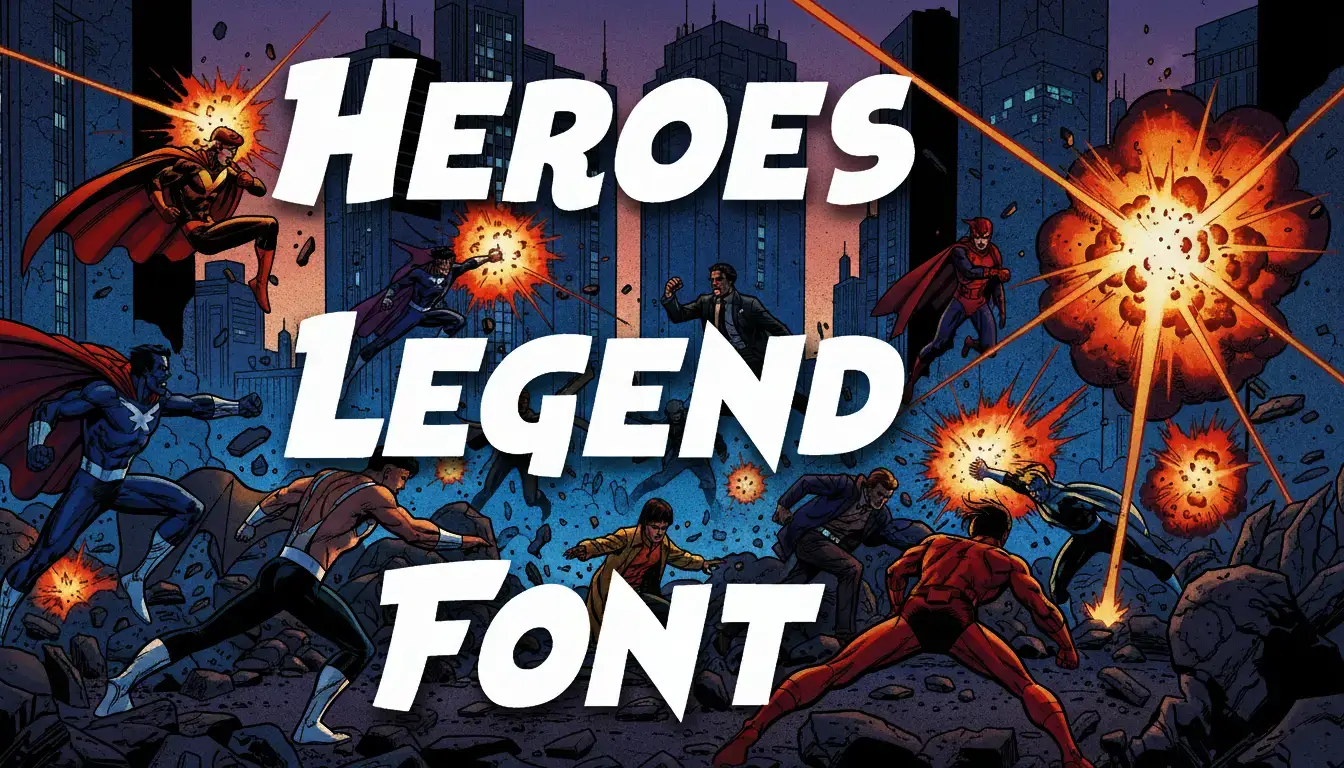
Heroes Legend Font
Heroes Legend
- Designer: IMAGEX
- Glyphs: 171
What You Can Type With Heroes Legend
You get every letter from A to Z in both cases and all the numbers from 0 to 9, which means Heroes Legend can handle full sentences, dates and prices. Common punctuation such as &, !, ? and @ is included as well. It also has the accented letters you need for Spanish, French, Portuguese and Italian.
Where Heroes Legend Works Best
Heroes Legend is a natural fit for posters, logos and eye-catching headlines. Use it for one standout word or headline and let simpler fonts handle the rest.
Does Heroes Legend support accented letters?
Yes. Heroes Legend includes the accented letters needed for Spanish, French, Portuguese and Italian, so it works for more than just English.